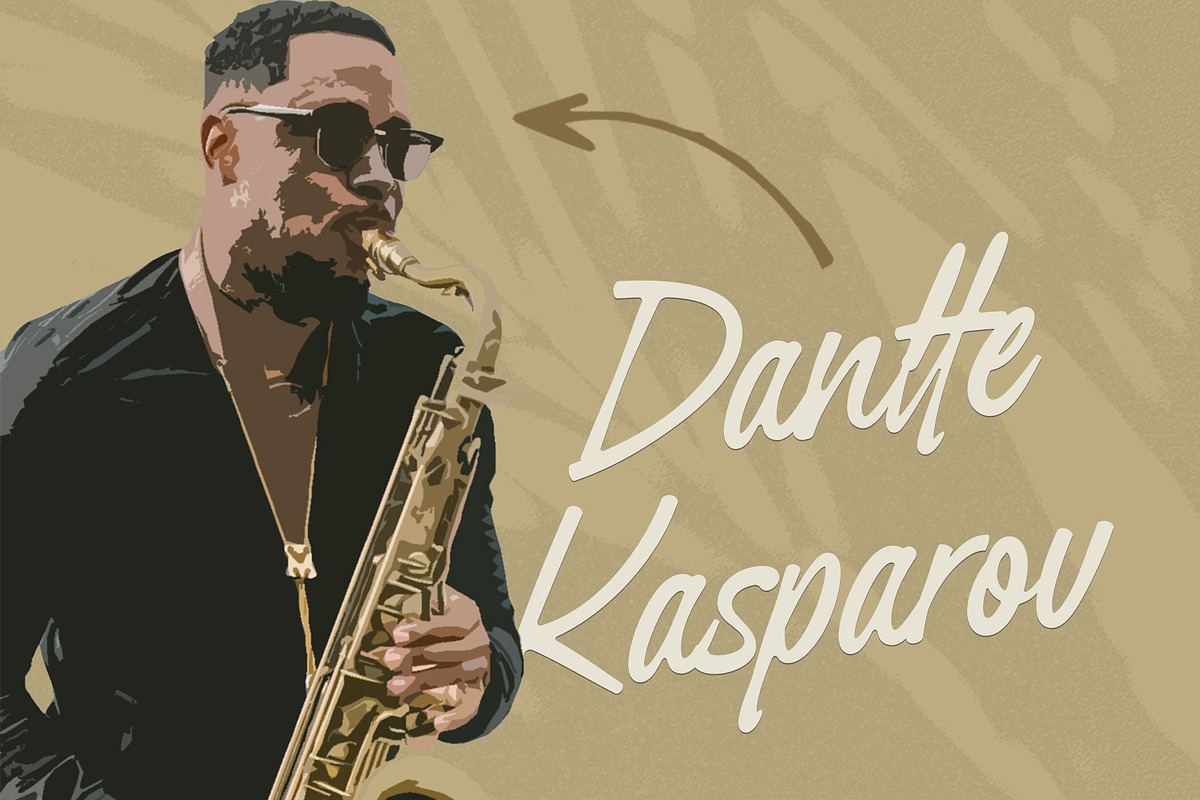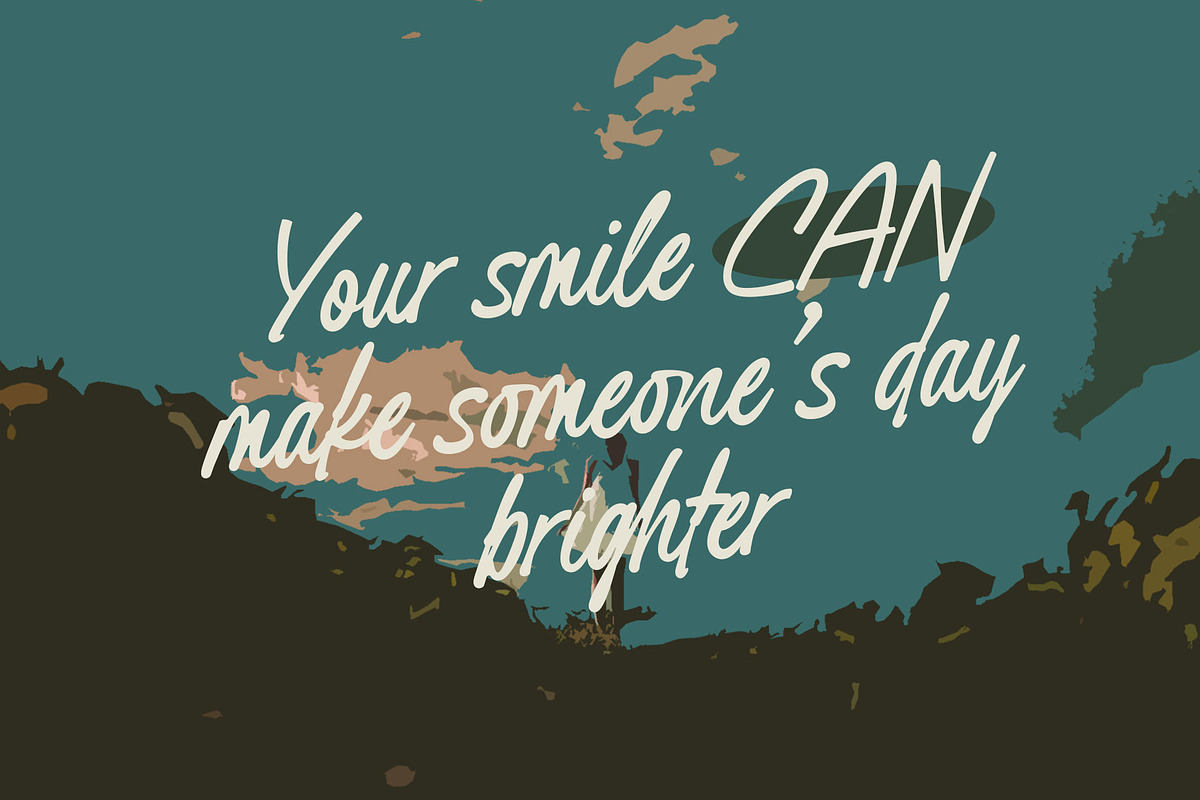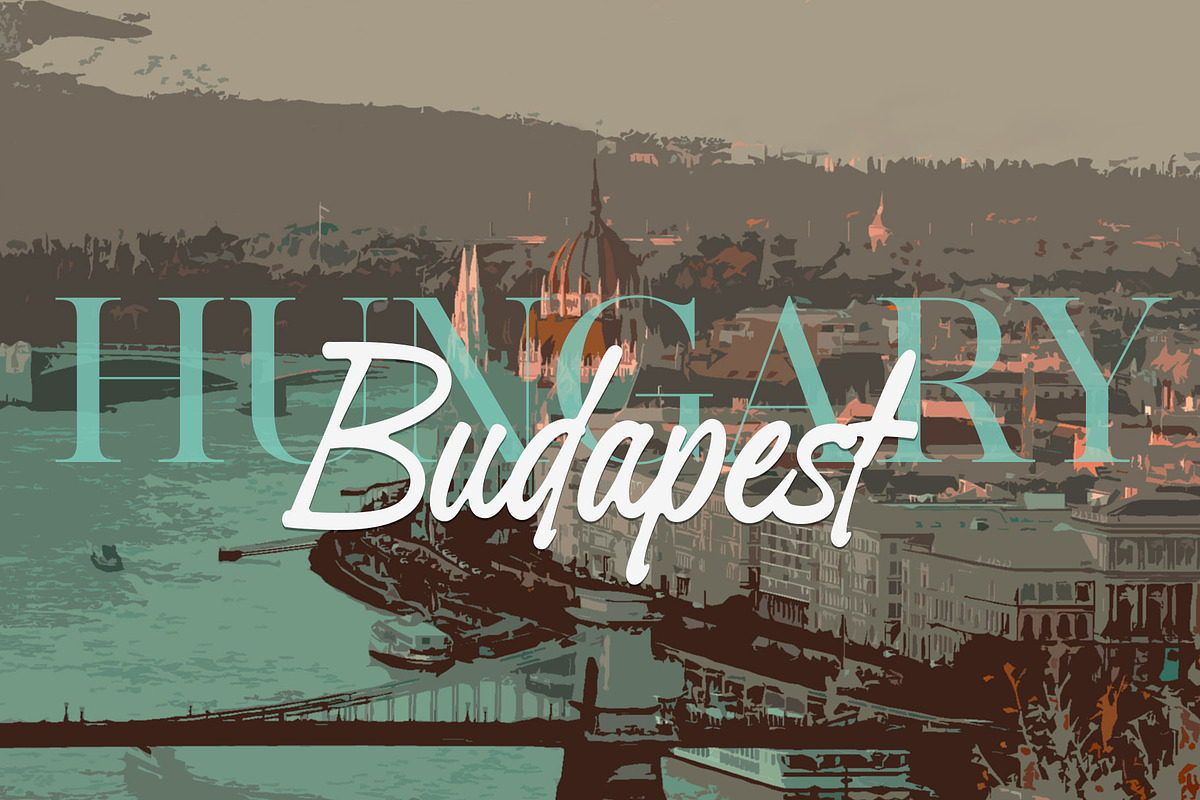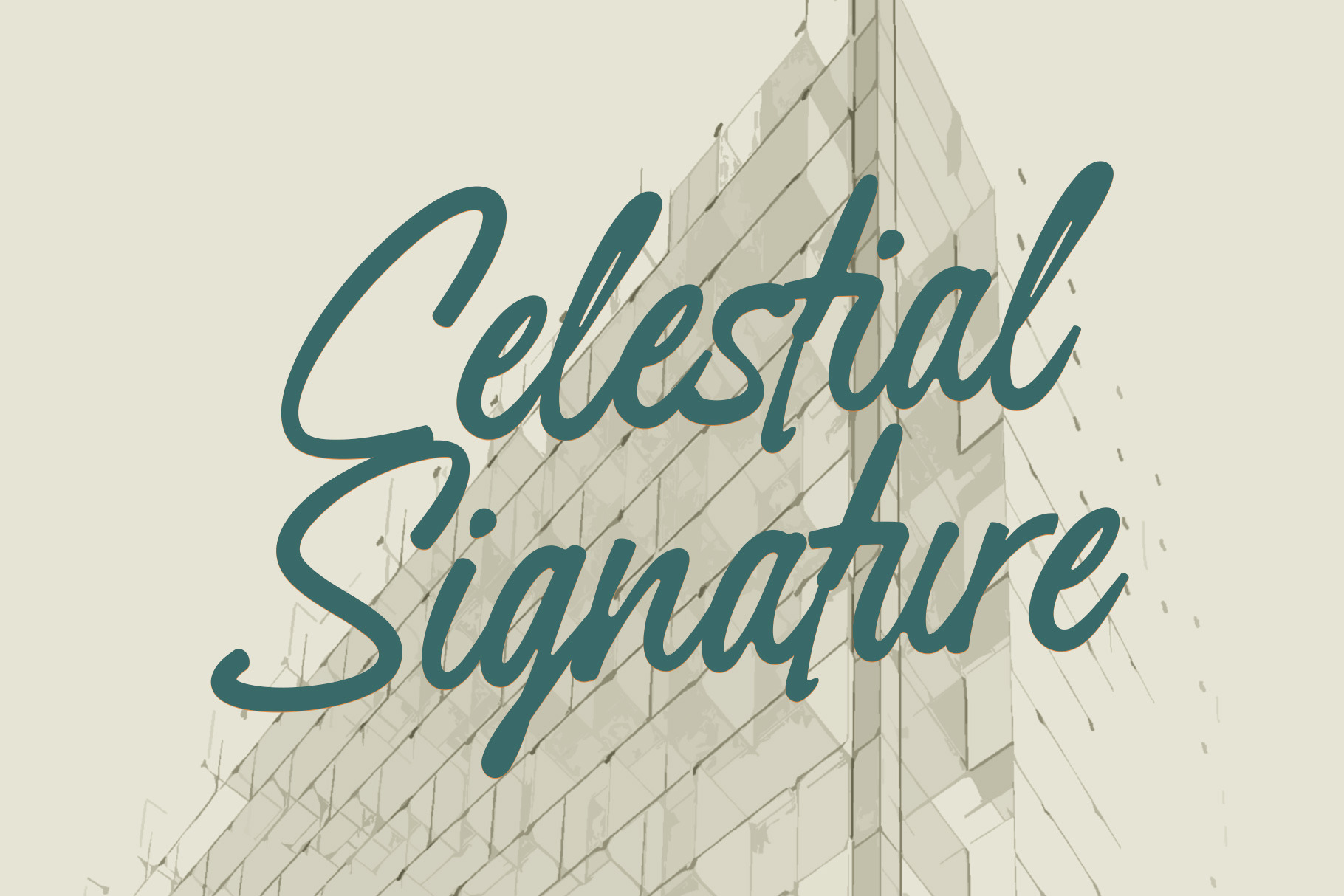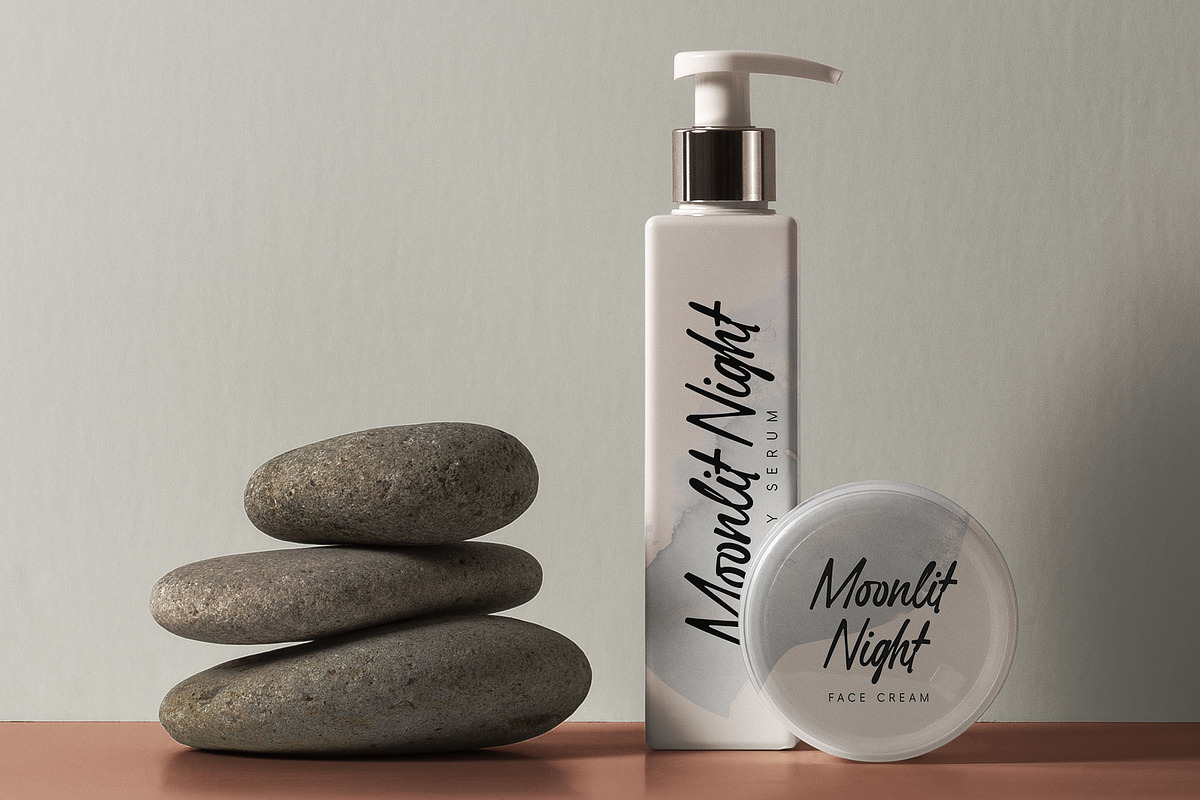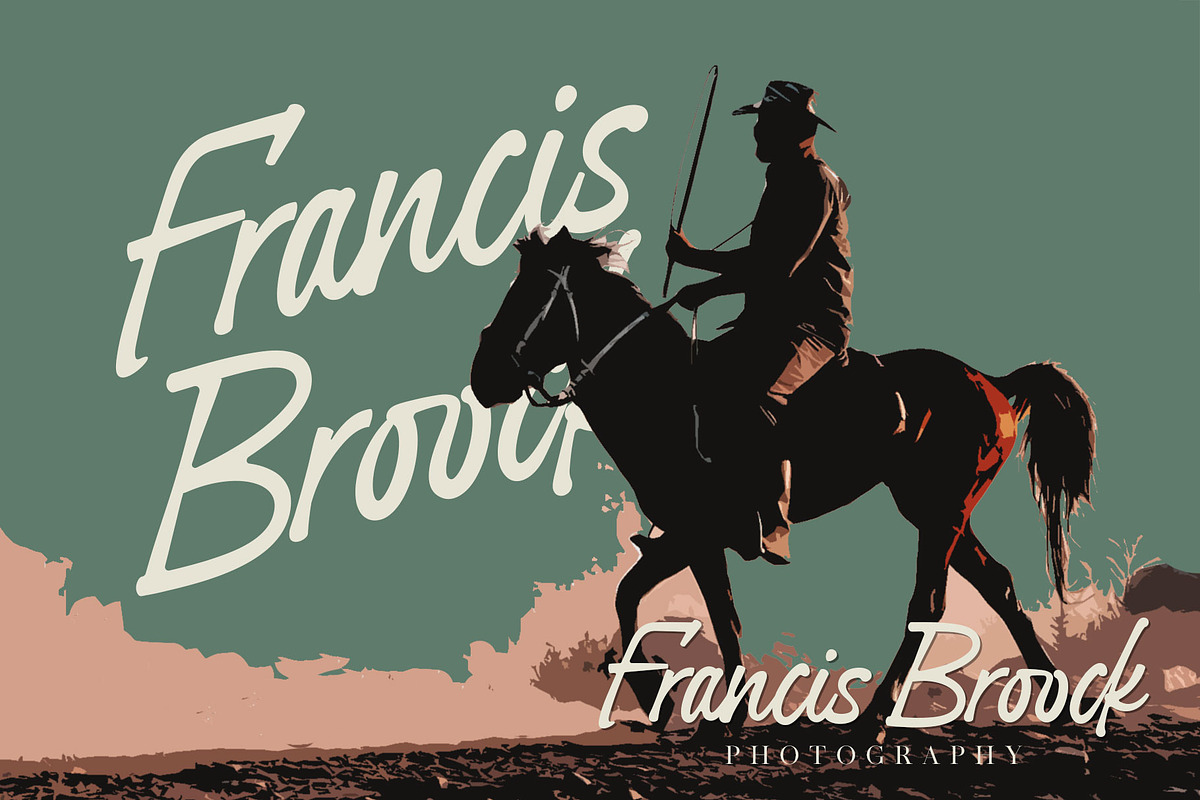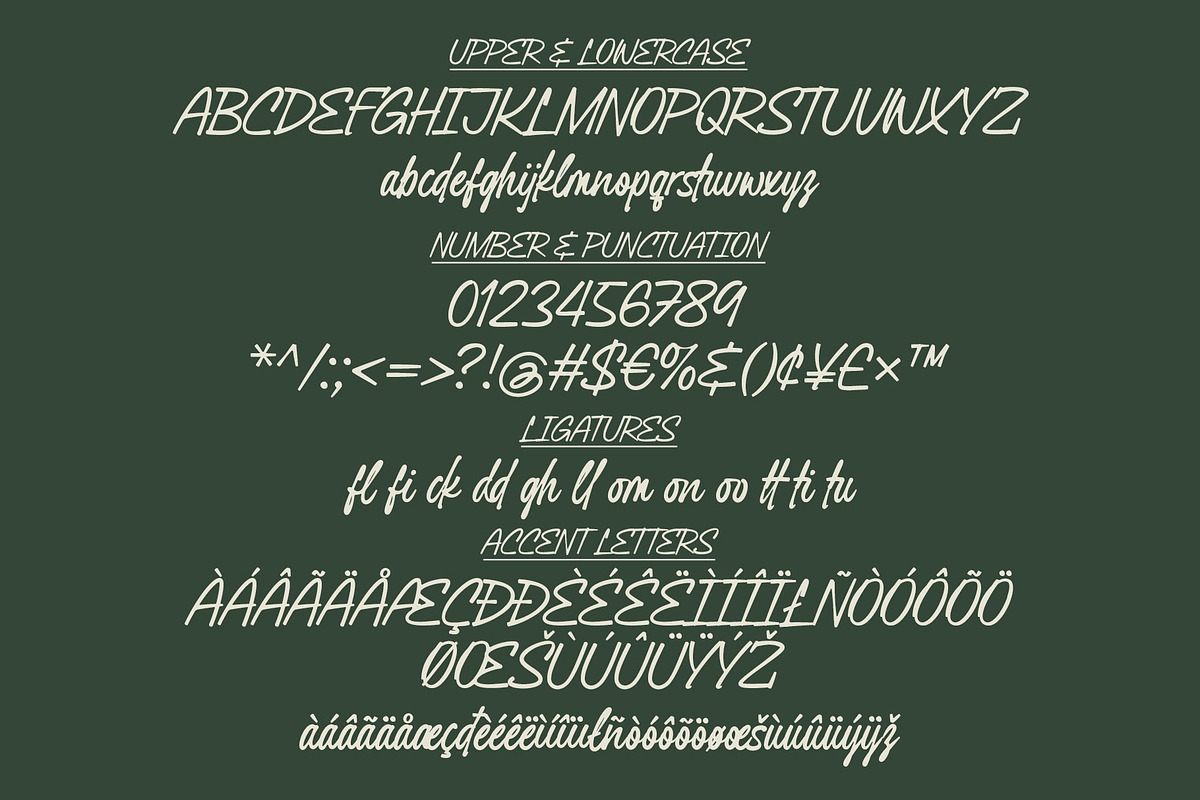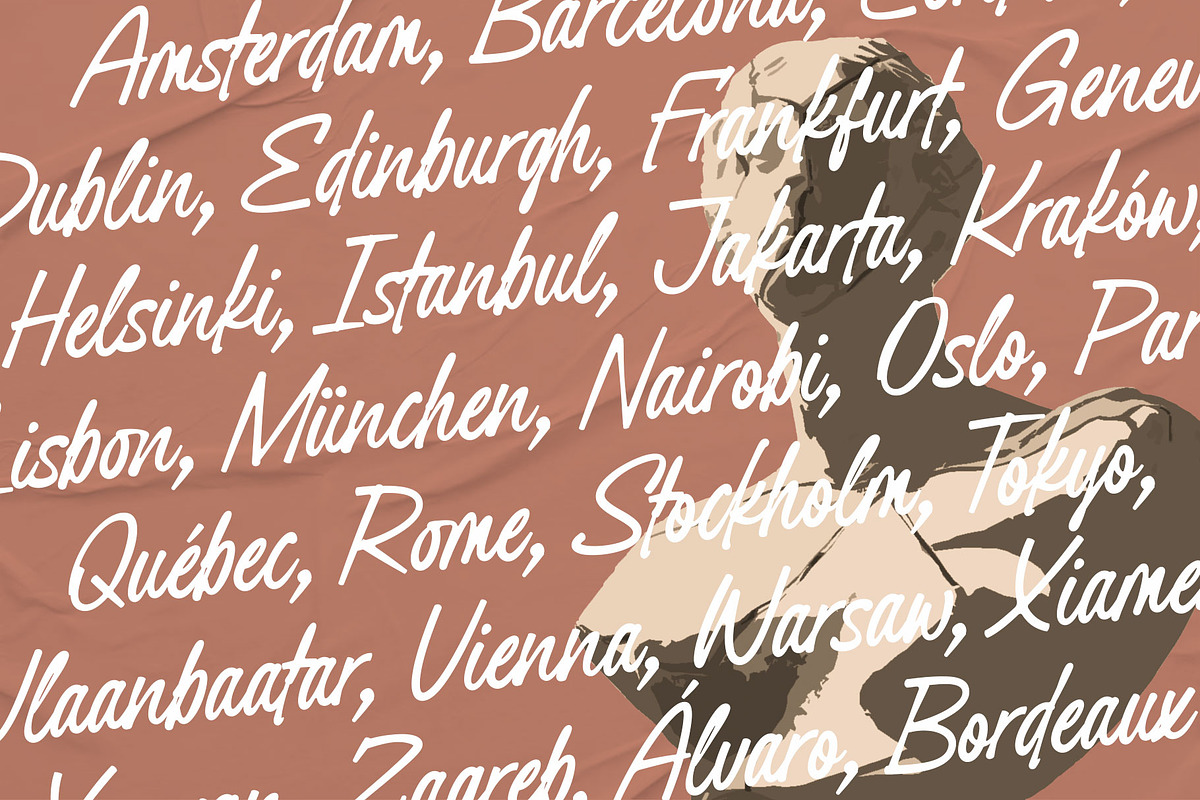
Celestial Signature | Signature Font
Celestial Signature is a script font with a smooth and structured design, crafted to meet professional needs. This font features solid lines and balanced contrast, making it both highly legible and elegant. It is suitable for branding, promotional materials, formal invitations, digital media, and more